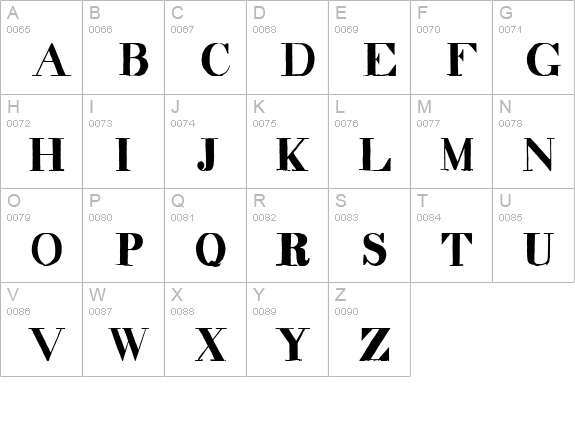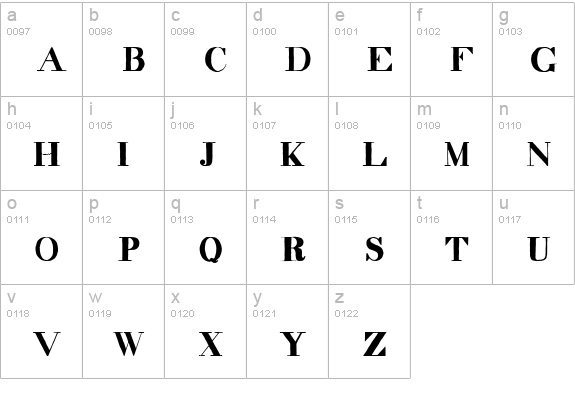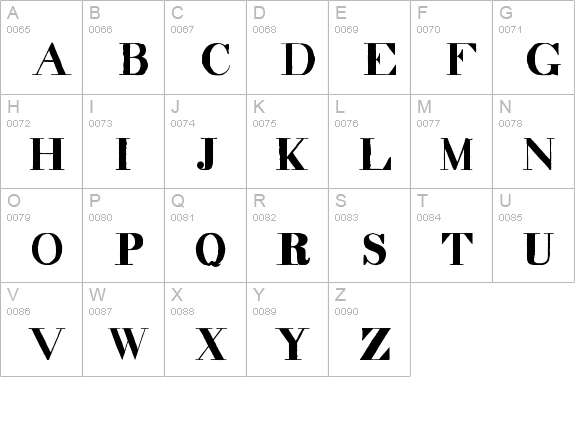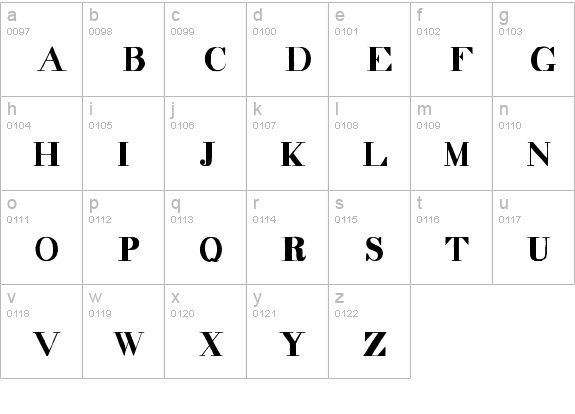
decadence in the dark Font Details
Decadence in the Dark is a mesmerizing font that exudes an aura of luxury and extravagance. Its intricate details and elegant curves make it perfect for adding a touch of sophistication to any design project. The deep, dark tones of this font evoke a sense of mystery and allure, drawing the viewer in with its alluring beauty. This captivating font is freely available to download at FontsMarket.com, allowing you to effortlessly elevate your creations with its opulent charm. Whether you're designing a logo, creating a poster, or crafting a stunning website, Decadence in the Dark will add a touch of decadence and refinement to your work. Embrace the allure of the dark with this exquisite font and watch as your designs shine with sophistication and style.